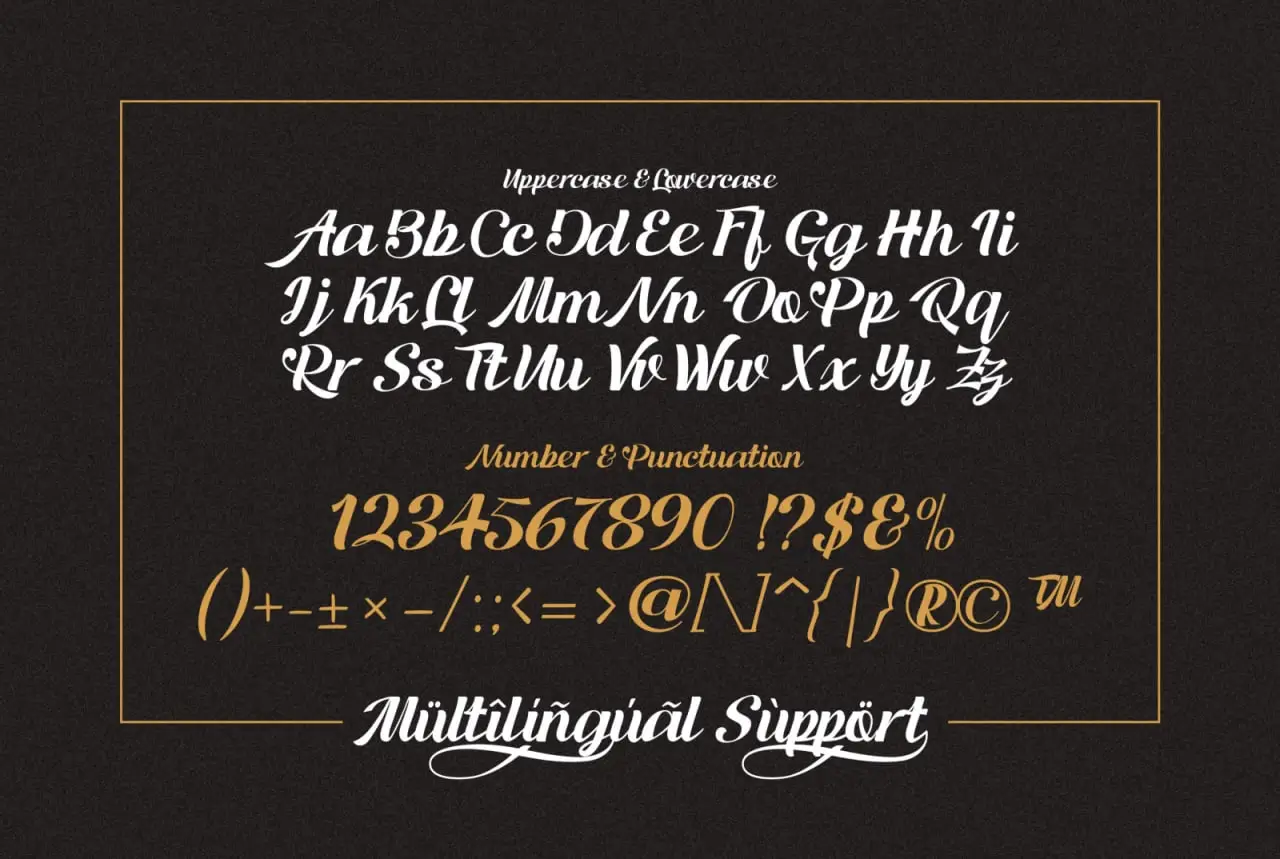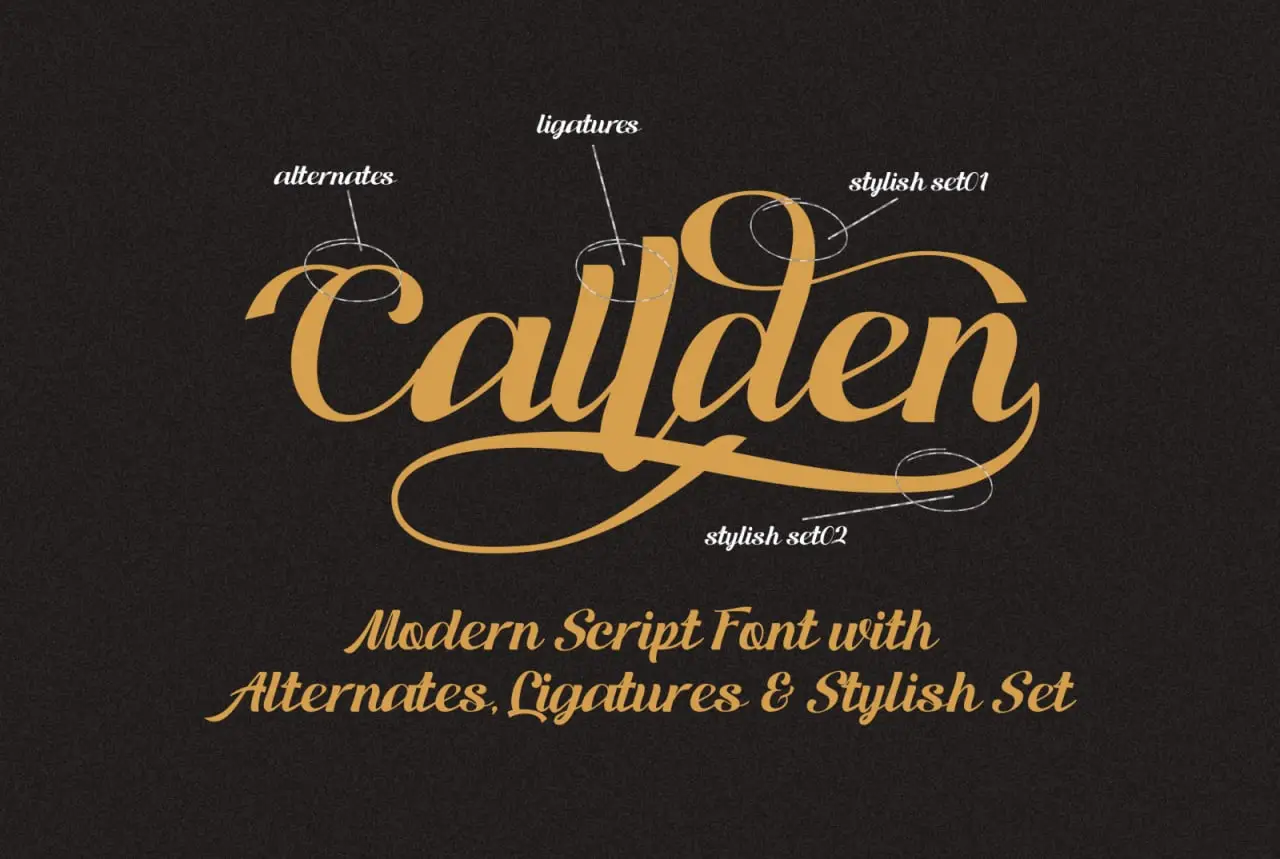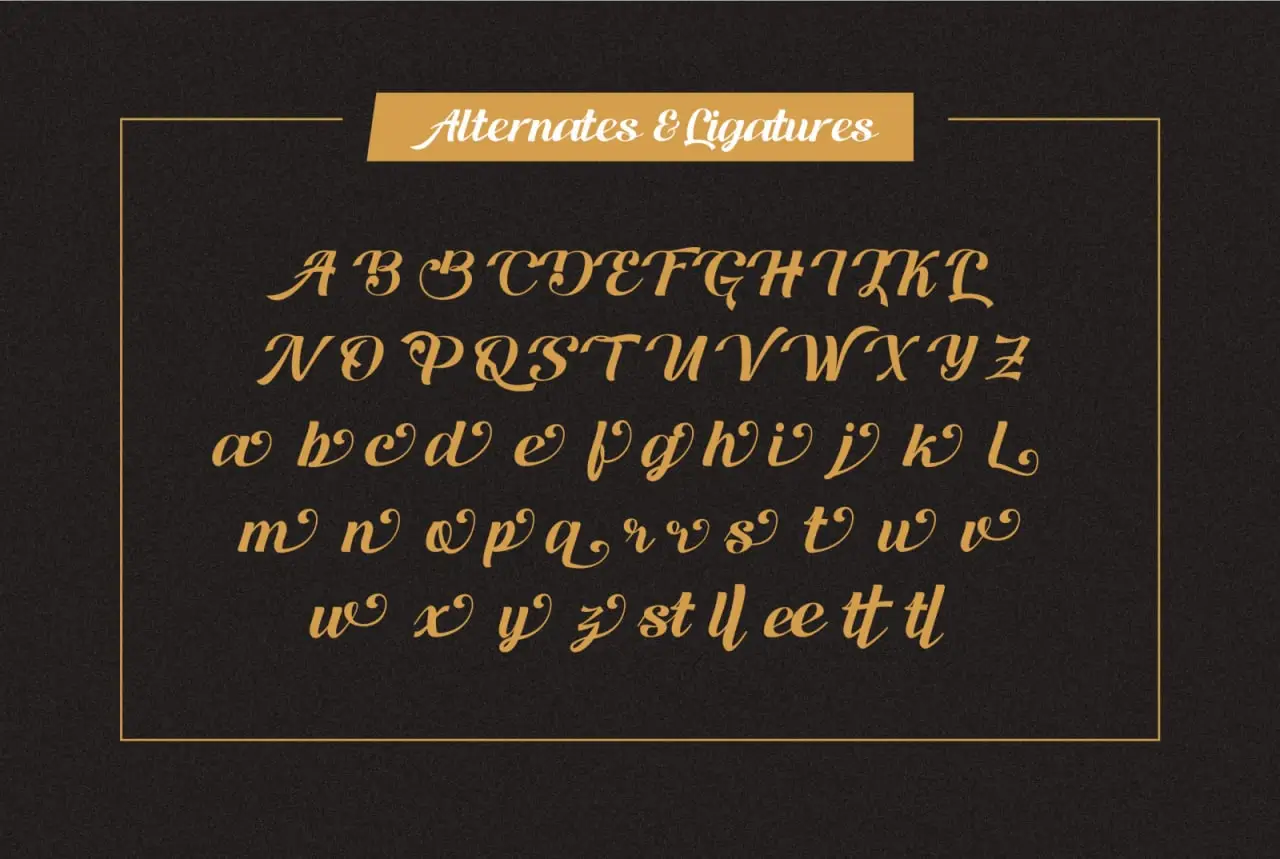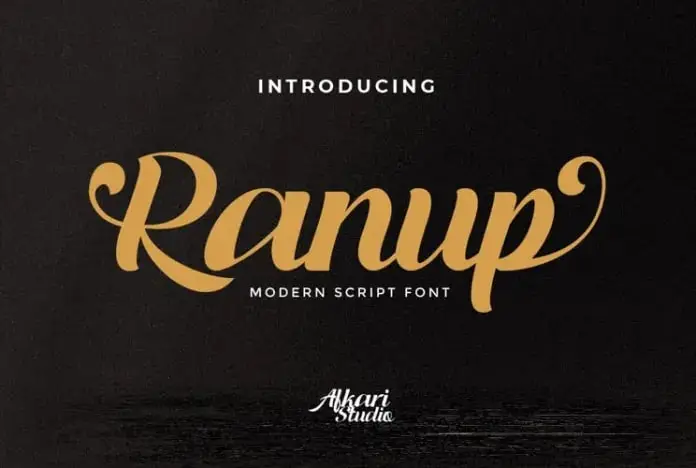
Ranup-Modern Script Font
Introducing the Ranup Modern Script Font, a beautifully crafted typeface that blends elegance with a contemporary touch. This font features a unique style that is perfect for a variety of design projects, including branding, logos, invitations, and more.
• Stylish and modern script design
• Includes uppercase and lowercase letters
• Variety of ligatures for enhanced typography
• Available in multiple weights
• Ideal for creating eye-catching logos and branding materials
• Perfect for invitations, greeting cards, and other print designs
• Great for web design, enhancing user interfaces and digital content